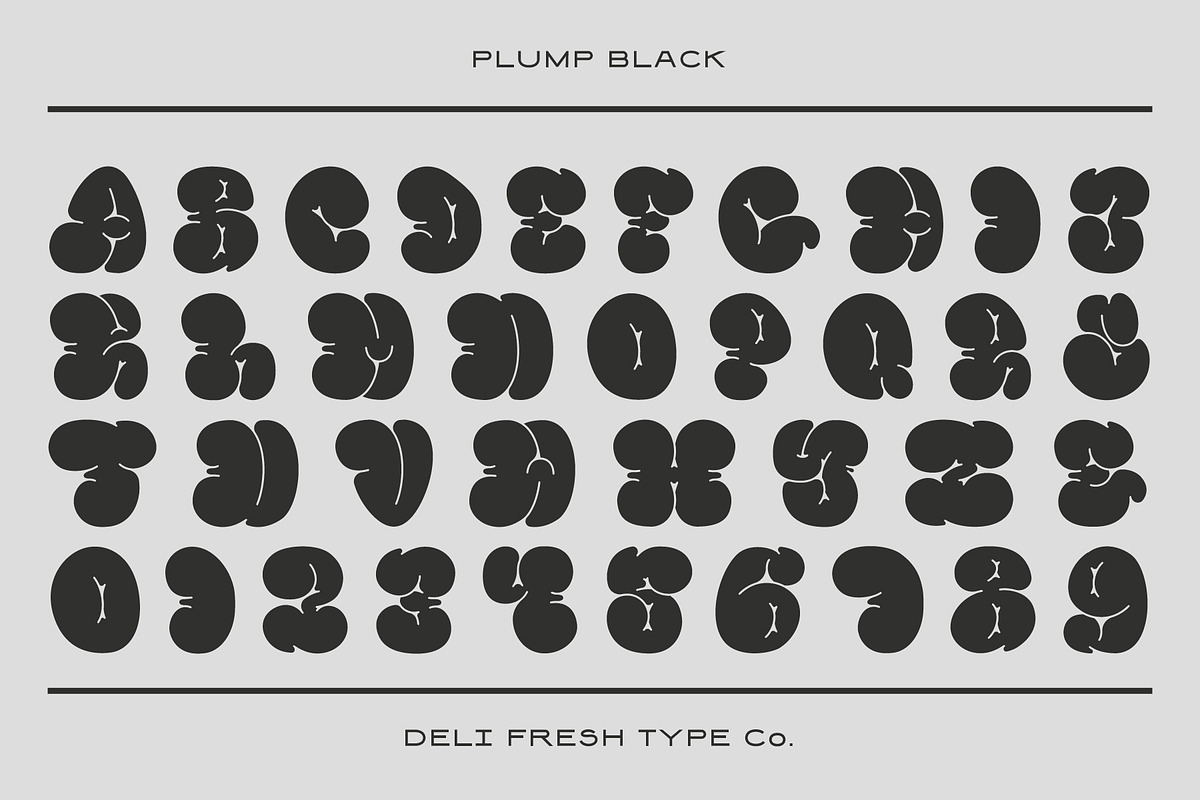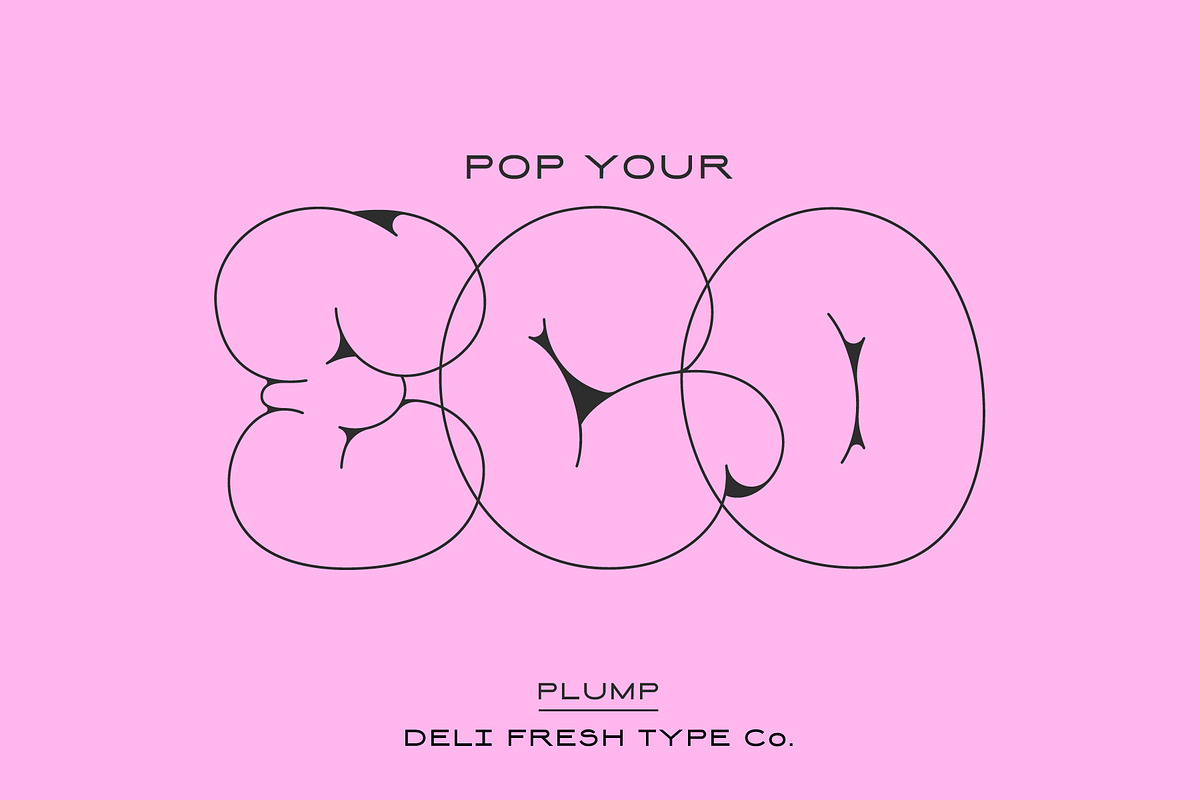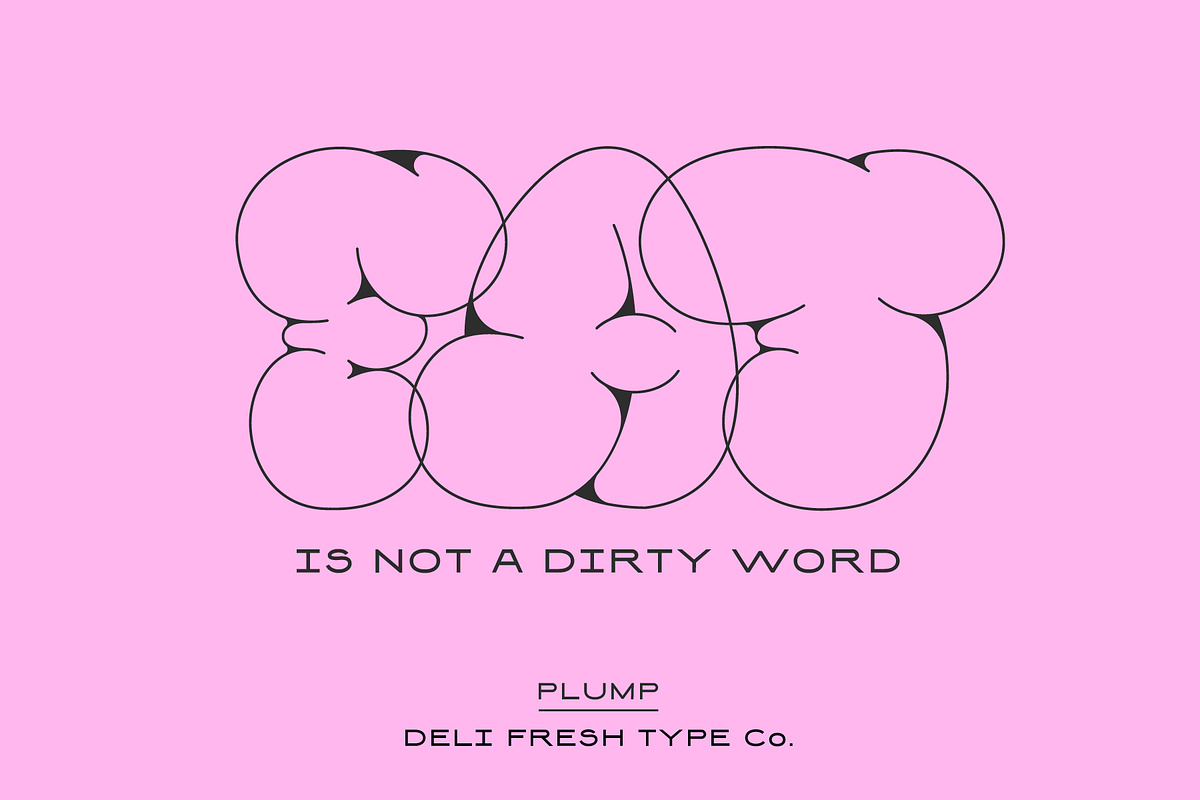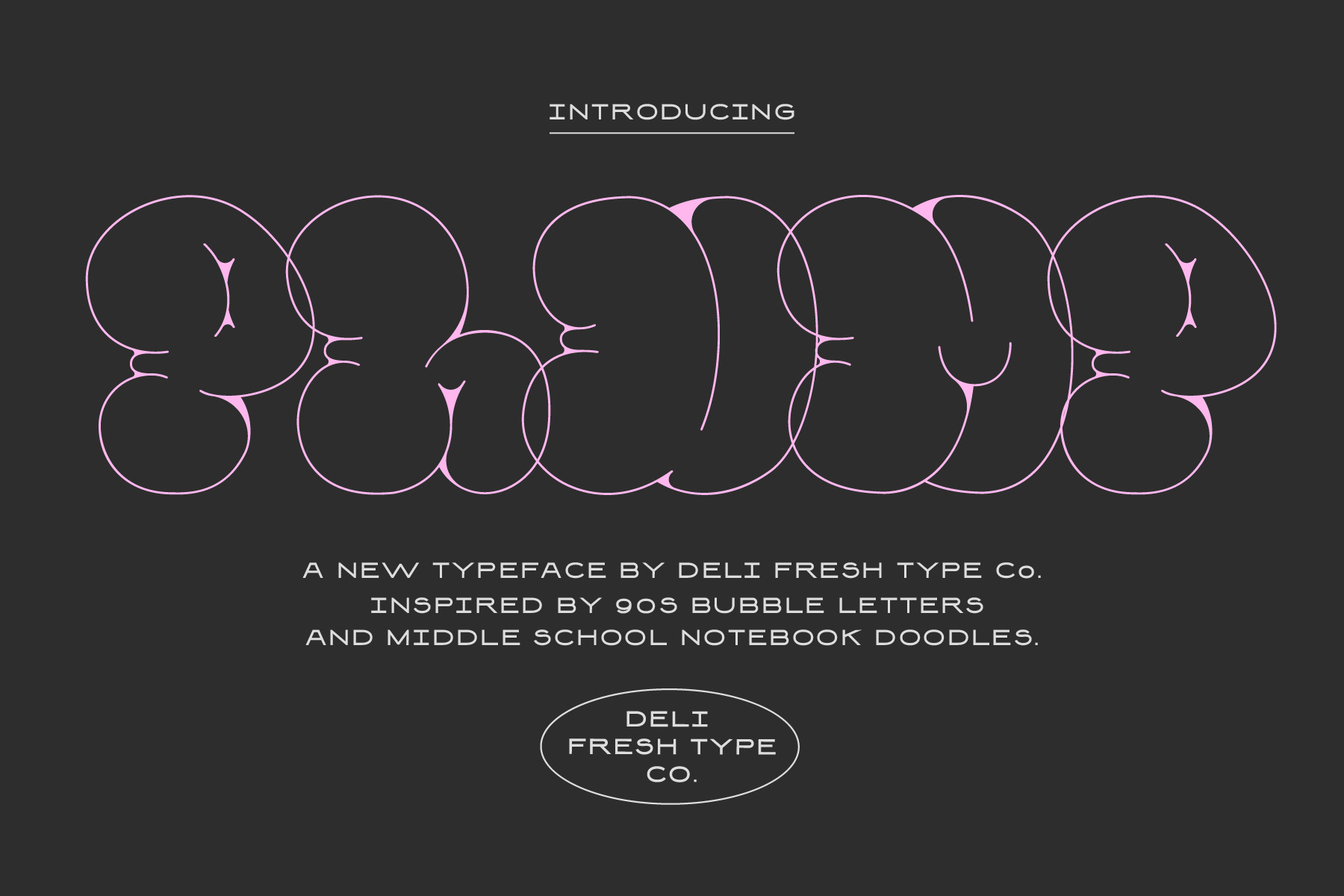
Plump: A Bubble Letter Font
A new typeface inspired by 90s bubble letters and middle school notebook doodles.
Comes with upper-case letterforms, numbers, and a smattering of punctuation and special characters.